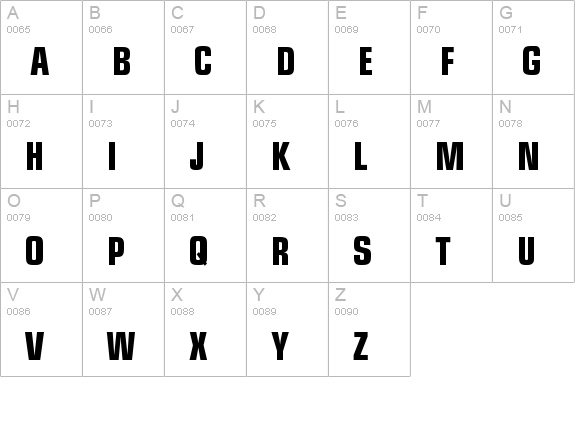
Eurostile Condensed Bold is a strong, high-contrast, condensed-width variant in the Eurostile typeface family \xE2\x80\x94 well suited to headlines, attention-grabbing titles, and strong calls-to-action.
Eurostile Condensed Bold is a modern and versatile typeface that exudes strength and sophistication. Its condensed design gives it a sleek and contemporary look, making it perfect for headlines, posters, and branding projects that require a bold statement. With its clean lines and distinctive letterforms, Eurostile Condensed Bold commands attention and adds a touch of confidence to any design. The best part? Eurostile Condensed Bold is available for free download at FontsMarket.com. This means you can easily access this premium font without any cost, making it a valuable addition to your font library. Whether you're a designer looking to elevate your projects or a business seeking a professional and impactful typeface, Eurostile Condensed Bold is a fantastic choice that won't break the bank. Download it today and see how it can enhance your creative endeavors!